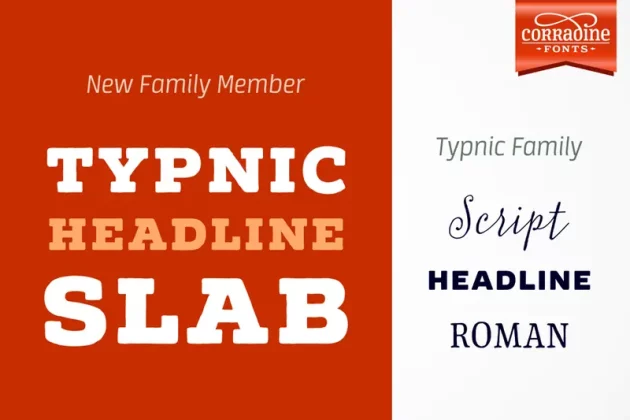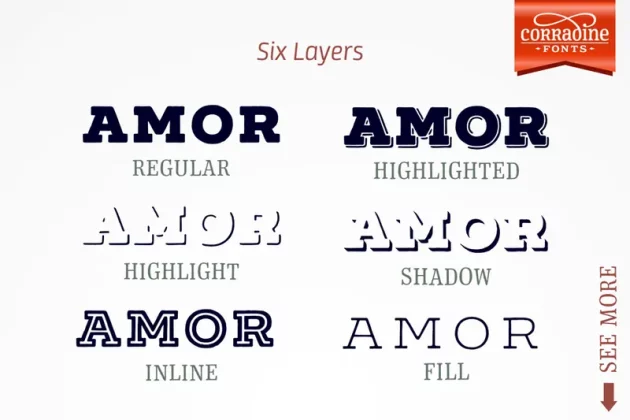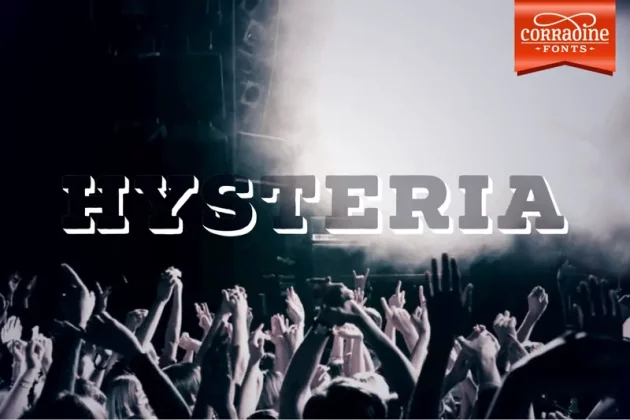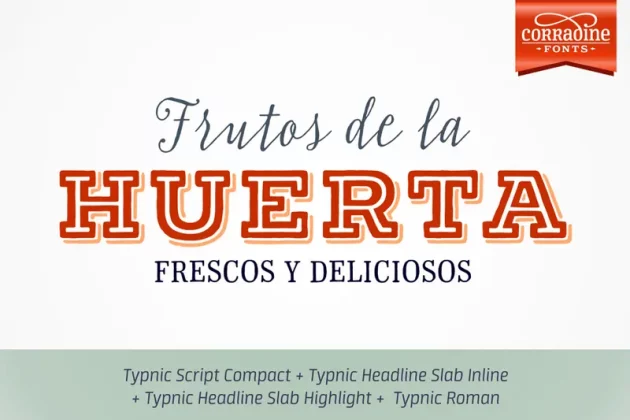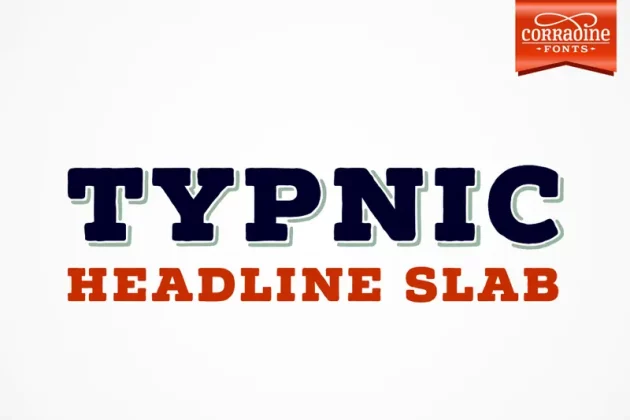
About Typnic Headline Slab Font
Everybody likes to have a picnic: some fresh fruits, cheese, ham, wine and so on. Like a “typographic picnic”, Typnic font system gather many fonts with different flavors too, and you can enjoy them mixed or on their own.
Typnic Headline Slab is just a piece created to complement the Typnic font system and as in the first headline version it comes in six layered fonts that can be mixed in a powerful variety of combinations to obtain outstanding texts.